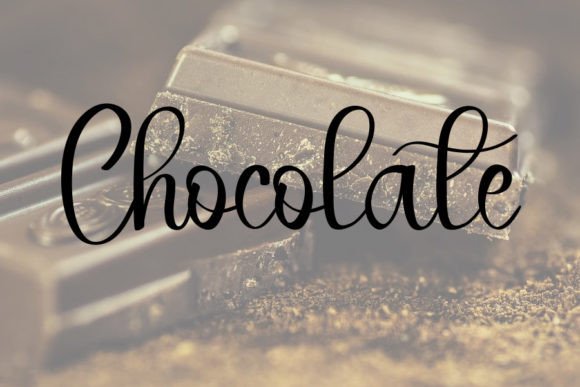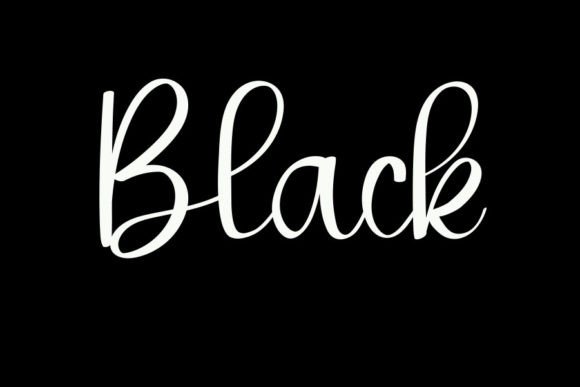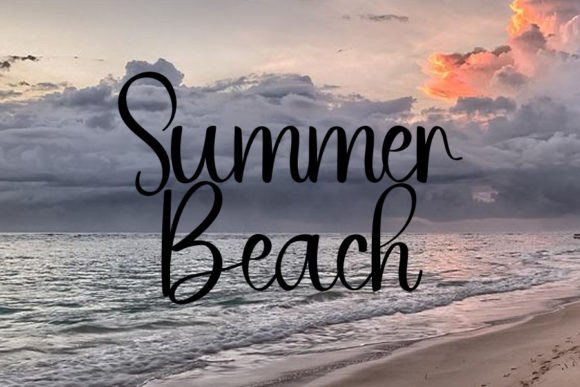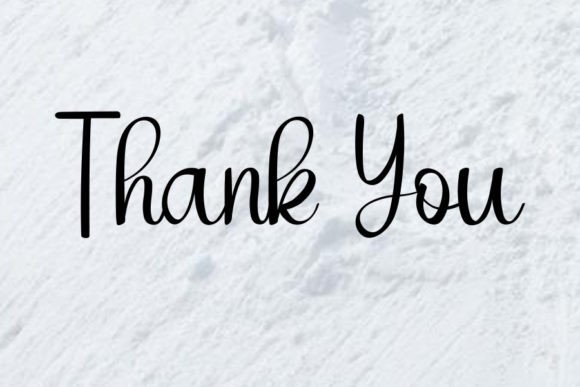
Candy Font: A Sweet and Lovely Handwritten Script Font
Candy is a delightful and charming handwritten script font that is sure to add a touch of sweetness to your designs. With its gentle and flowing strokes, this lovely font is perfect for a variety of creative projects, from wedding invitations and party decorations to branding and marketing materials.
A Versatile Font for Various Design Ideas
One of the best things about Candy font is its versatility. Its sweet and romantic style makes it suitable for a wide range of design ideas, including:
- Wedding invitations and stationery: Add a touch of elegance and sophistication to your wedding designs with Candy font.
- Party decorations: Use Candy font to create fun and playful party decorations, such as birthday invitations, party banners, and more.
- Branding and marketing materials: Candy font is perfect for creating sweet and charming branding and marketing materials, such as logos, business cards, and brochures.
- Digital art and craft: Candy font is a great addition to any digital art or craft project, such as digital scrapbooking, art journals, and more.
Why Choose Candy Font?
So, why choose Candy font for your next design project? Here are just a few reasons:
- Unique and eye-catching: Candy font is a one-of-a-kind font that is sure to grab attention and make your designs stand out.
- Easy to read: Despite its playful and cursive style, Candy font is easy to read and understand, making it perfect for body text and headlines.
- Customizable: Candy font comes with a range of customization options, allowing you to adjust the font to suit your design needs.
Tips for Using Candy Font
Here are a few tips for using Candy font in your designs:
- Pair with bold fonts: Pair Candy font with bold and contrasting fonts to create visual interest and hierarchy in your designs.
- Use for headlines and titles: Use Candy font for headlines and titles to add a touch of sweetness and whimsy to your designs.
- Add embellishments: Add embellishments, such as flowers and swashes, to enhance the romantic and playful feel of Candy font.
- Experiment with colors: Experiment with different colors and textures to add depth and interest to your designs.
In conclusion, Candy font is a lovely and sweet handwritten script font that is perfect for designers and crafters looking to add a touch of whimsy and romance to their designs. With its versatility, ease of use, and affordability, Candy font is a great addition to any design project. So why not give it a try and see how it can sweeten up your designs?
Whether you’re a seasoned designer or a crafty DIY enthusiast, Candy font is sure to delight. So go ahead, get creative, and make your designs a little sweeter with Candy font!